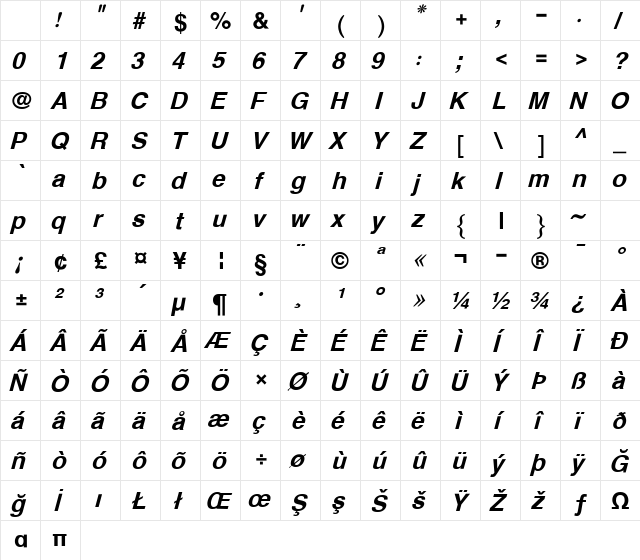
Complete XB Riyaz Bold Italic glyph index. Displaying only characters natively supported by XB Riyaz Bold Italic font.
XB Riyaz is a composed and adaptable typeface that performs quietly and consistently across a wide range of design contexts. The slanted form adds forward momentum and visual energy. Its bold stroke weight gives it real presence on the page.
Pro Tip: Use XB Riyaz for emphasis, pull quotes, and subheadings where its slanted energy can add rhythm to the layout.